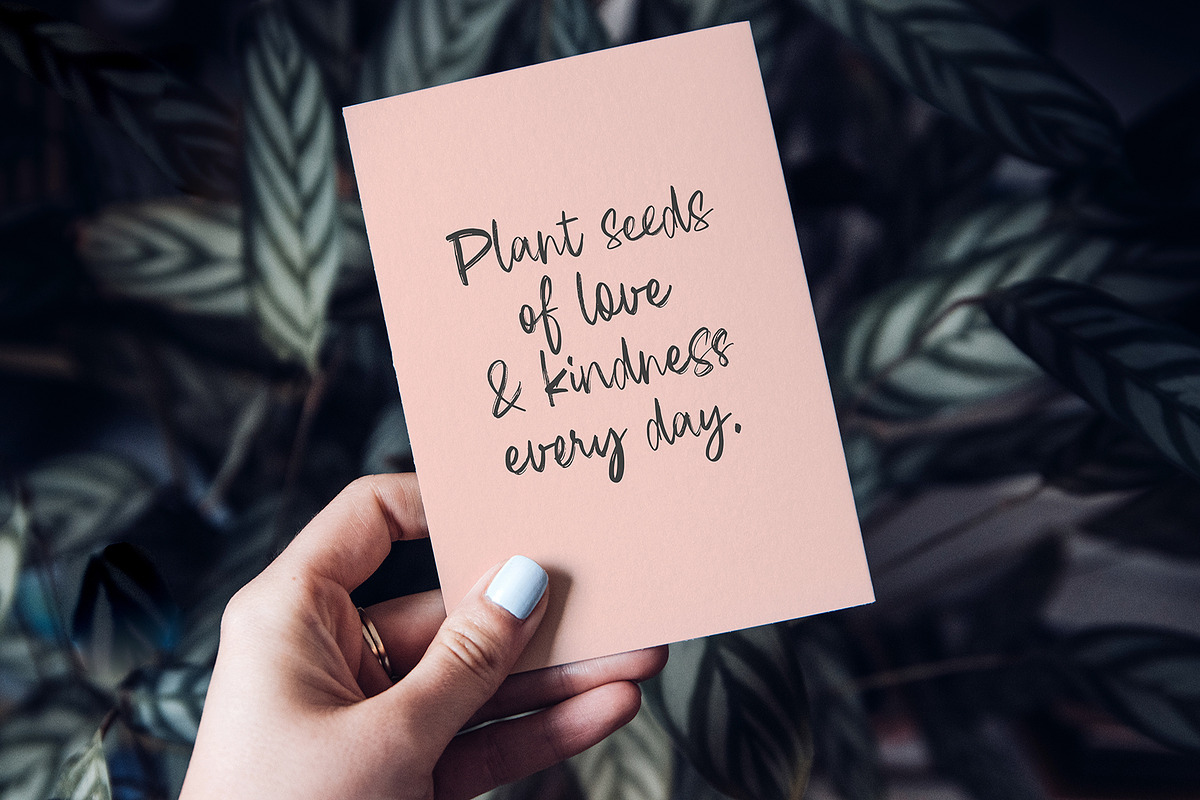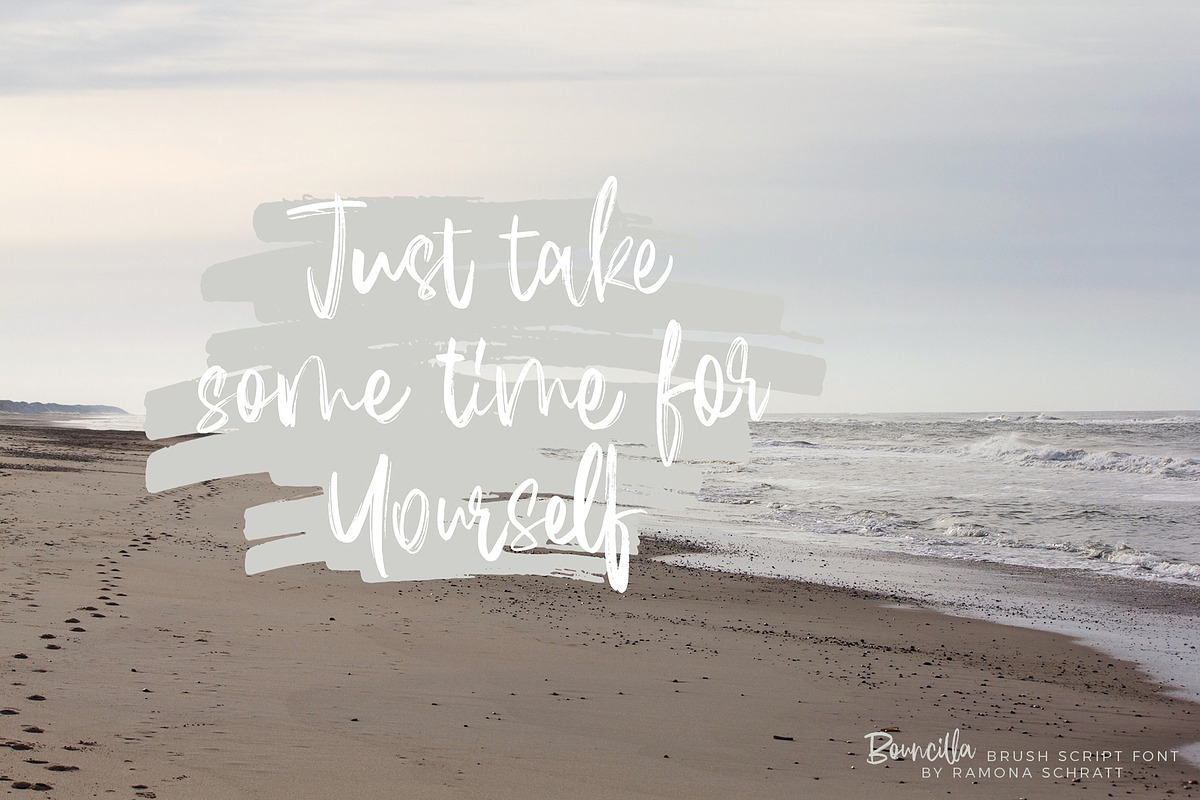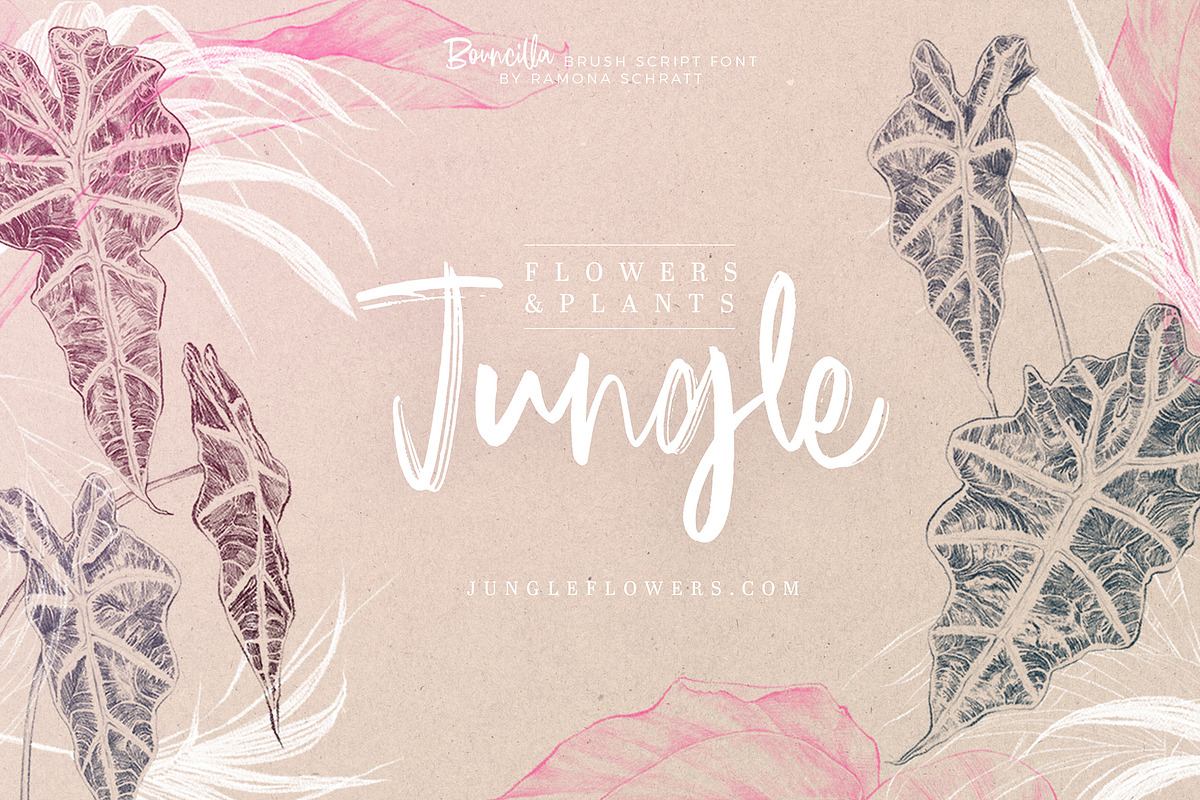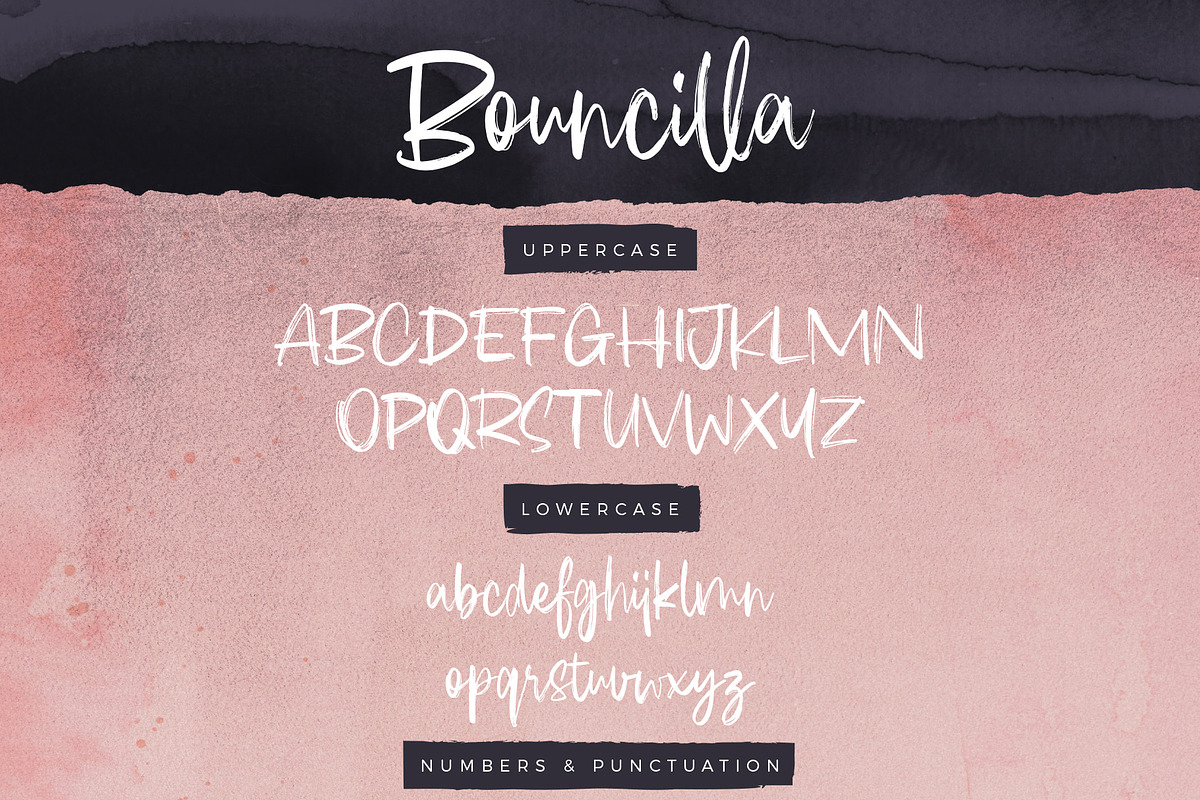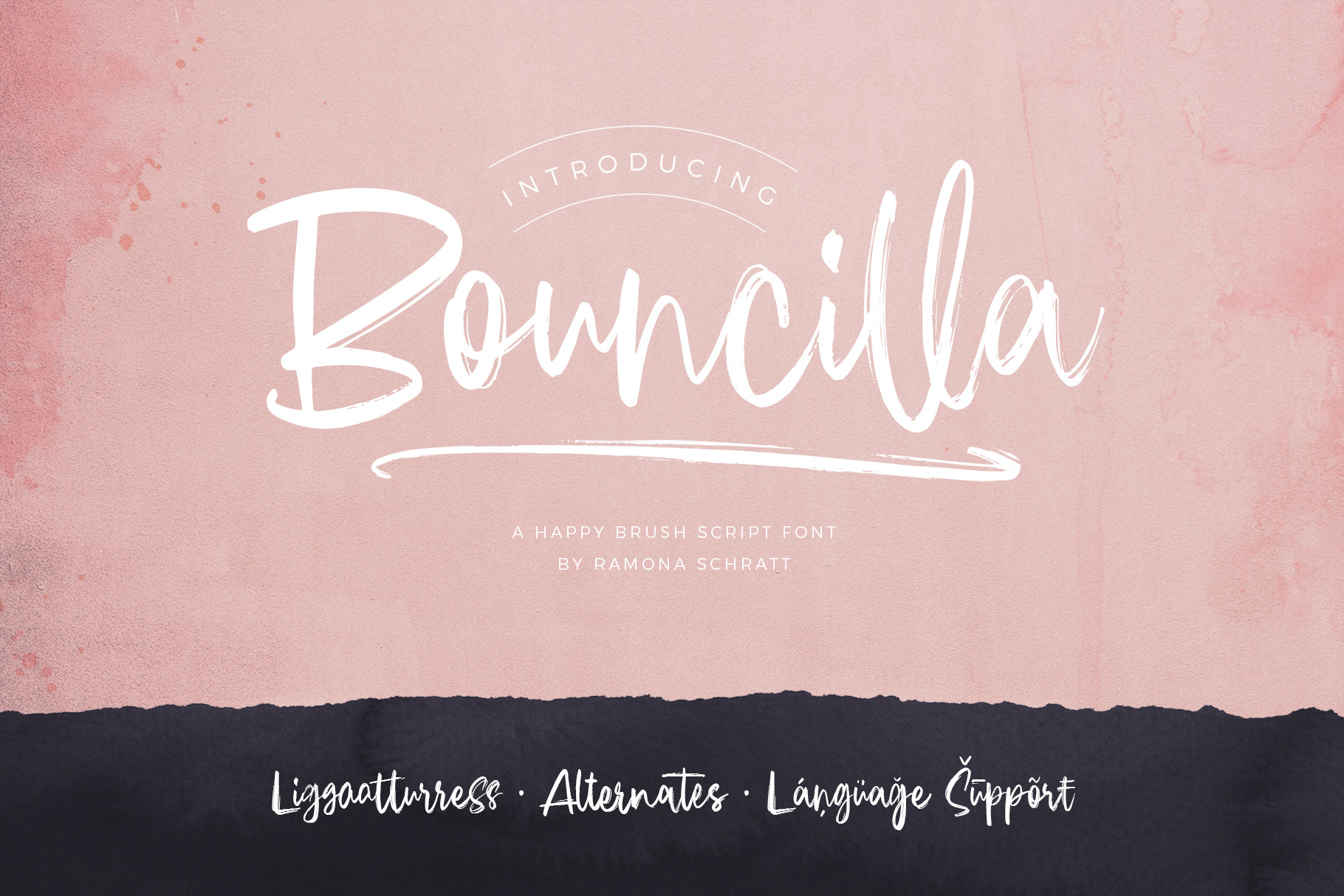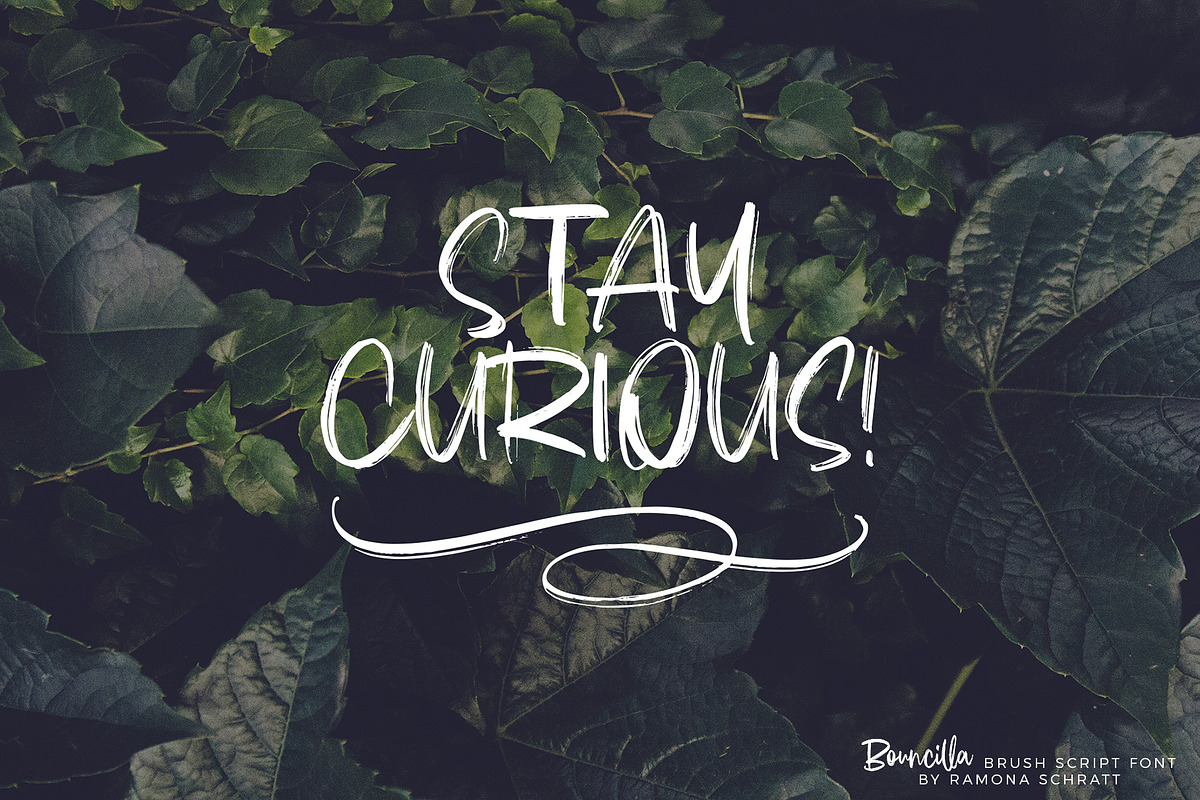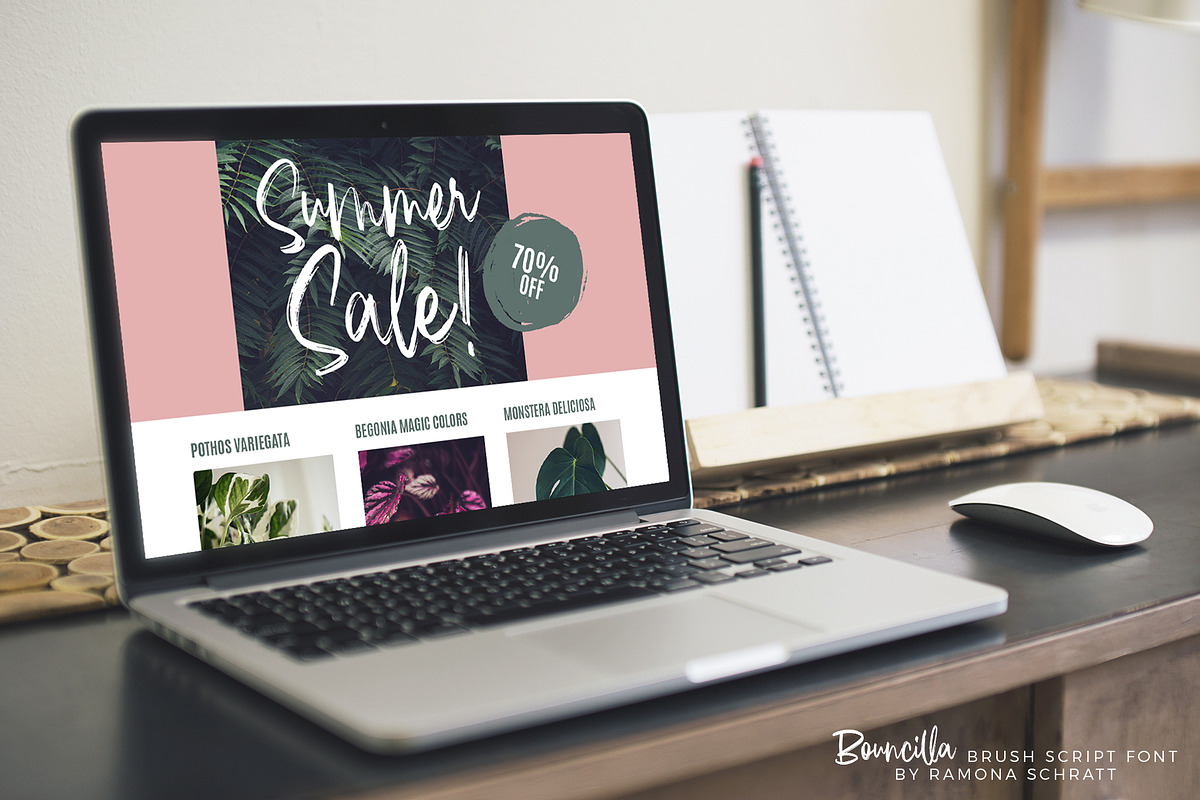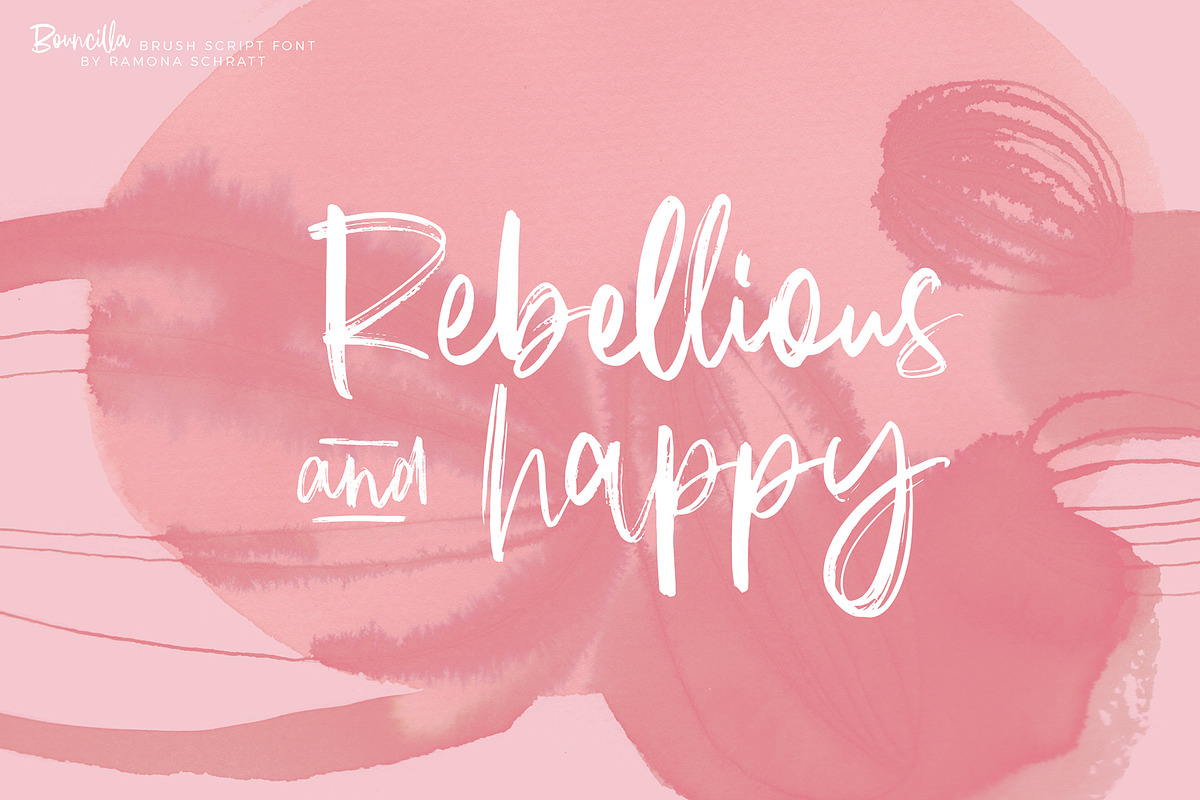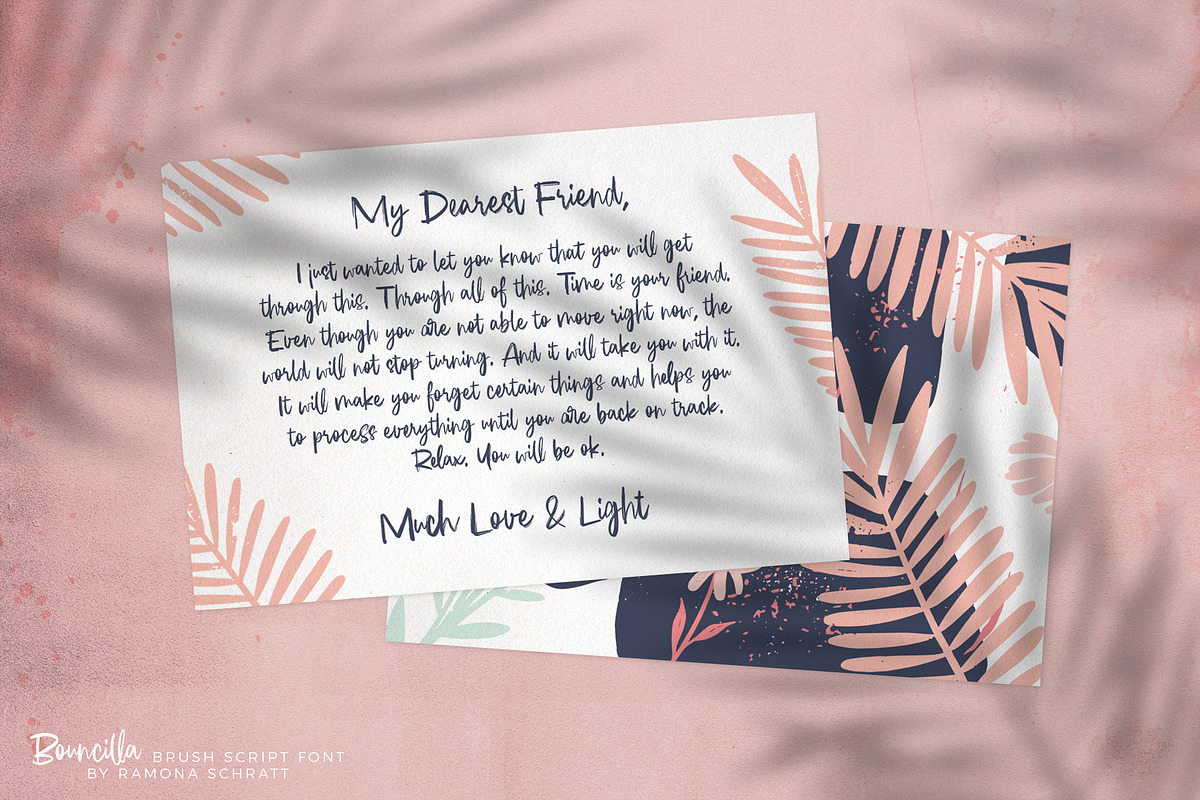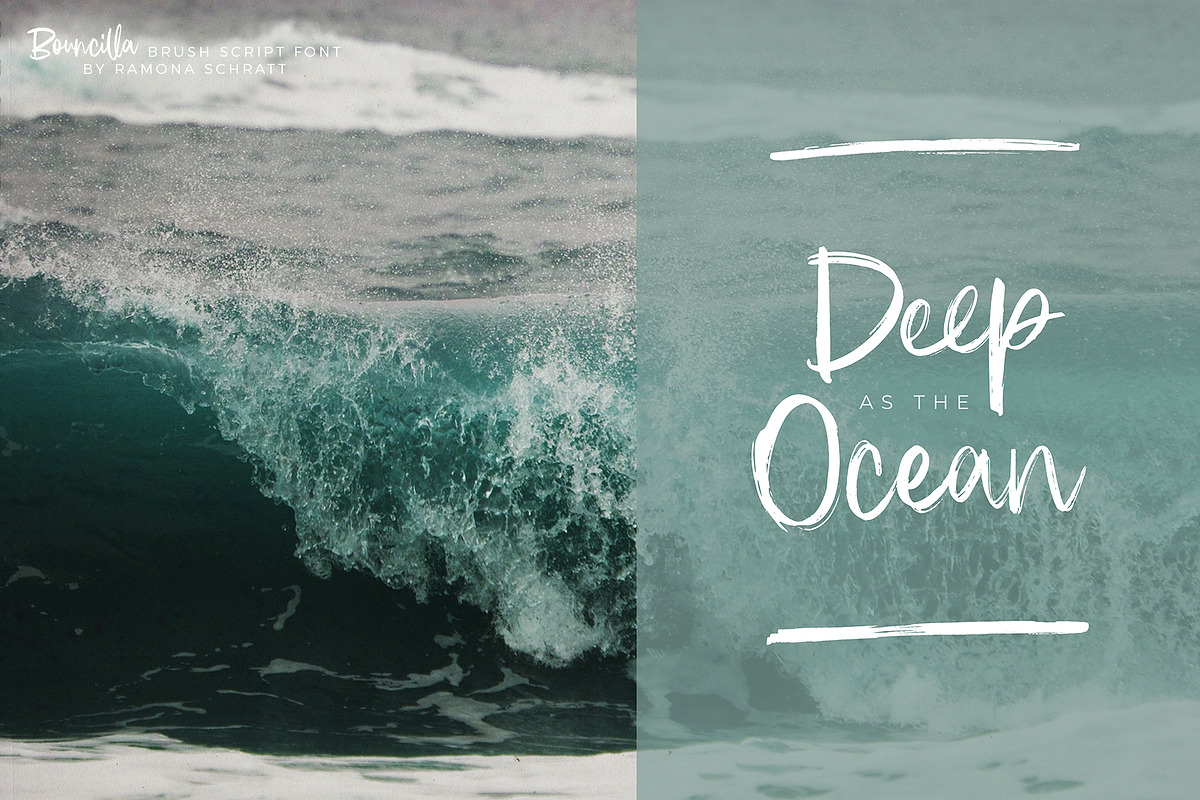
Bouncilla | Happy Brush Script Font
Introducing Bouncilla! A happy and modern brush script font with a lovely yet rough handmade texture. It comes with ligatures, lots of alternates and language support.
It's great for creating logos, branding, wedding invitations, packaging, quotes and also works as continuous text. Ligatures and alternates ensure an authentic handwritten look.